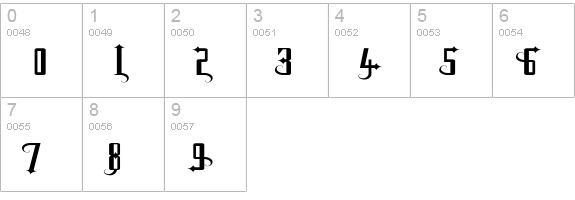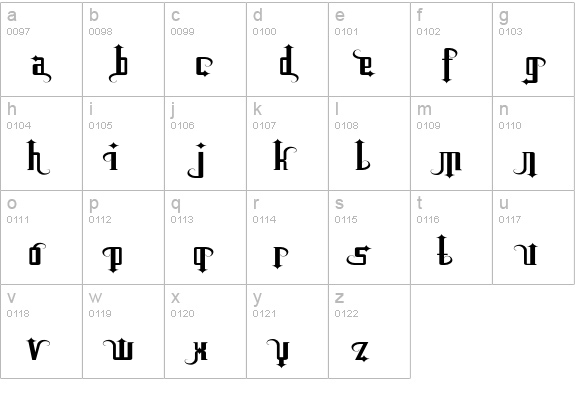
FlytrapBrier Font Details
Introducing FlytrapBrier font, a captivating and unique typeface that exudes a sense of mystery and allure. With its intricate design and intricate details, this font is perfect for adding a touch of whimsy and charm to your projects. The FlytrapBrier font features elegant, flowing lines and delicate serifs that give it a distinctive and enchanting appearance. What makes FlytrapBrier font even more appealing is that it is available for free download at FontsMarket.com. This means you can easily access and use this stunning font in your designs without any cost. Whether you're working on a creative project, branding materials, or simply looking to add a touch of elegance to your work, FlytrapBrier font is a versatile and stylish choice that will surely leave a lasting impression. Download it today and let your creativity soar with this enchanting typeface.